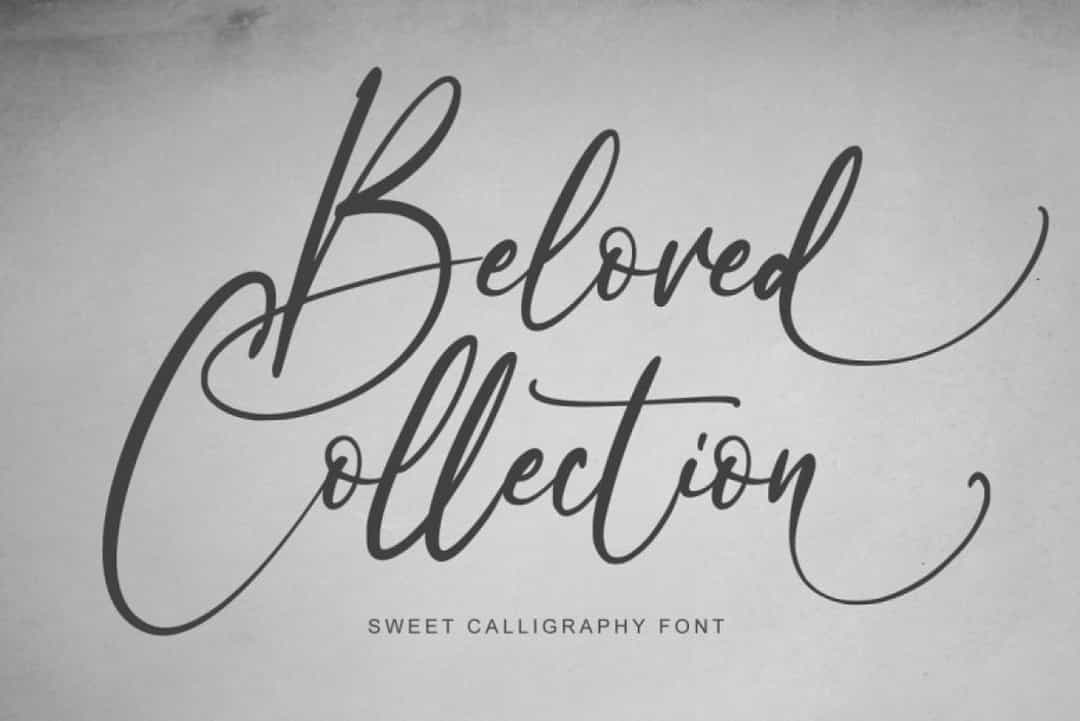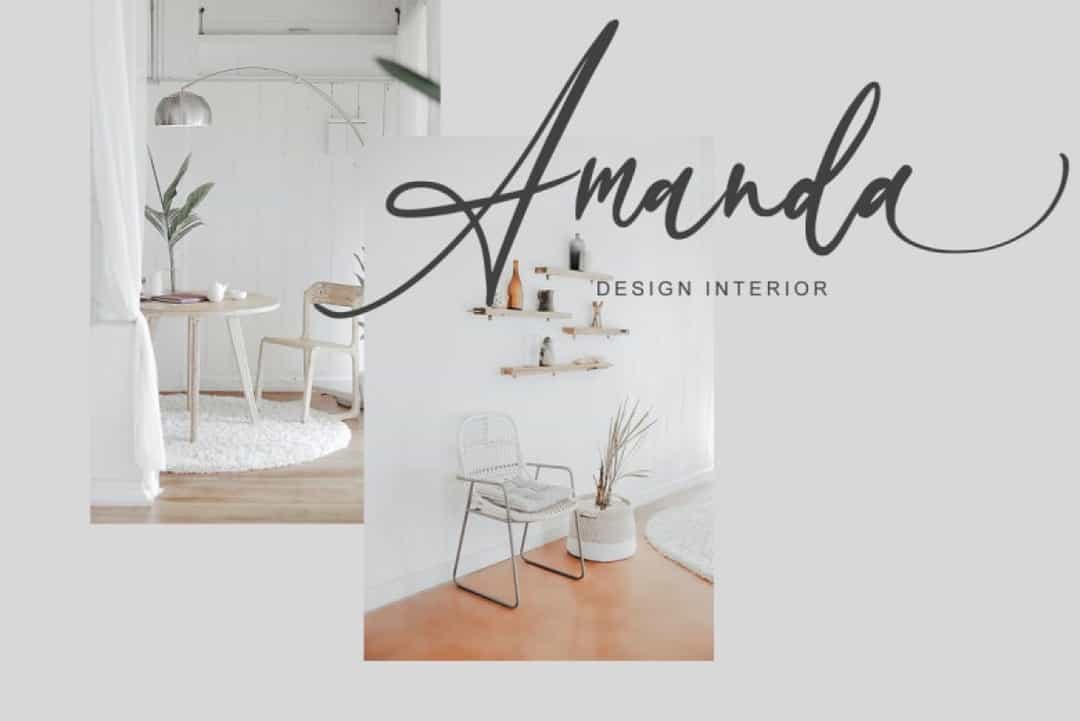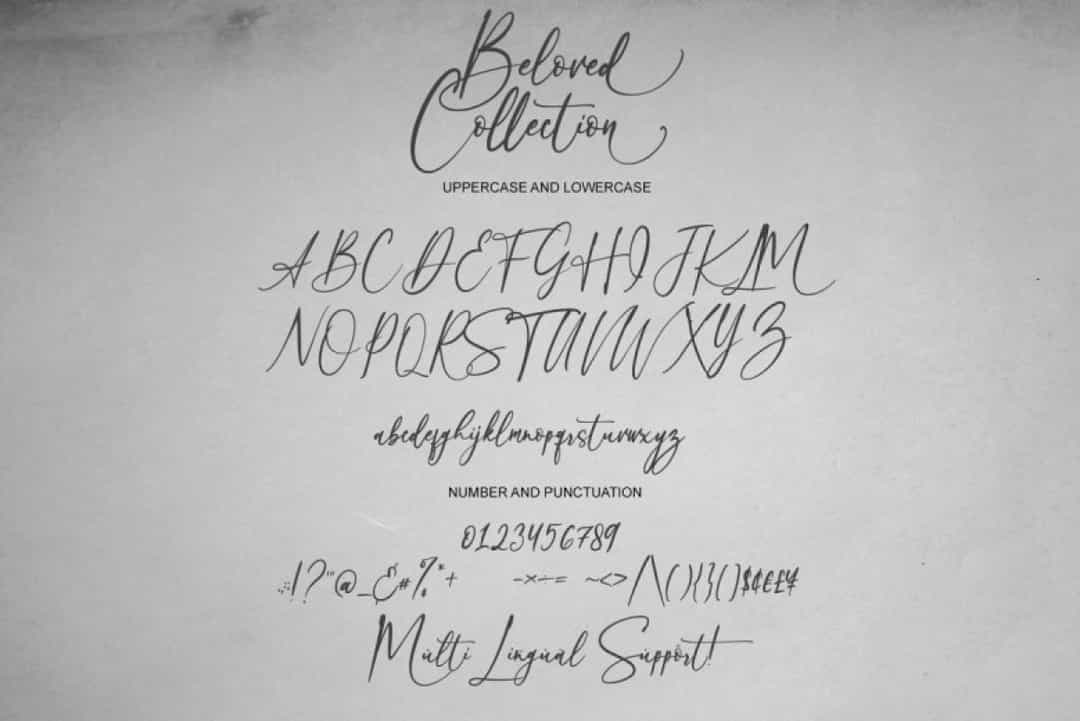
Beloved collection is a beautiful calligraphy font which has been made by hand and carries an air of sophistication and sophistication. Designer’s perfect for wedding invitations, thank you cards, greeting cards, quotes, logos and many more; Beloved Collection is sure to enhance the beauty of any design that requires a touch of elegance.